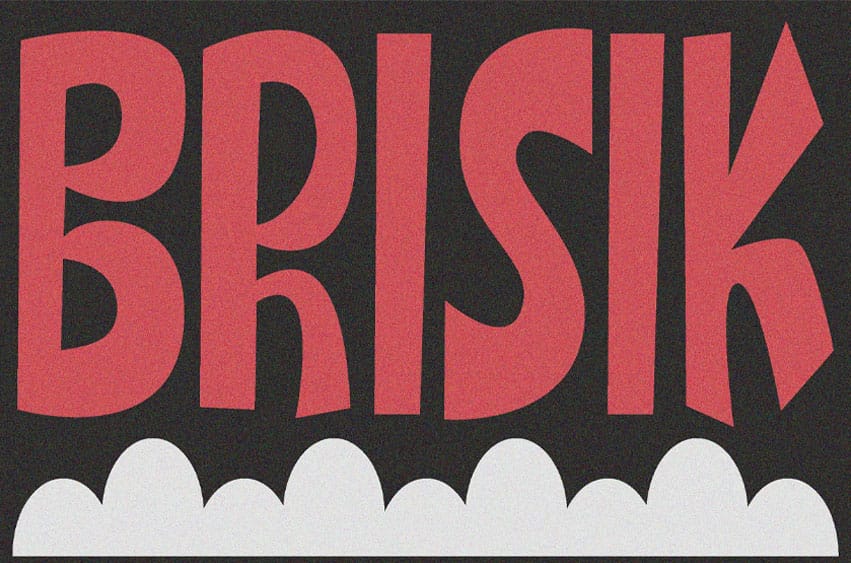
Brisik Font is a bold experimental display typeface that combines playful distortion with expressive handcrafted character shapes. Featuring tall proportions, organic curves, and unconventional letterforms, Brisik creates a strong visual presence that feels both artistic and rebellious.
Designed to break traditional typographic rules, Brisik is perfect for posters, album covers, branding, packaging, editorial headlines, creative campaigns, and contemporary visual identities. Its dynamic silhouette and quirky details give every word a unique rhythm, making designs feel energetic, memorable, and full of personality.
Whether you’re creating retro-inspired graphics, indie branding, artistic publications, or bold promotional materials, Brisik delivers a distinctive character that stands out from ordinary display fonts.